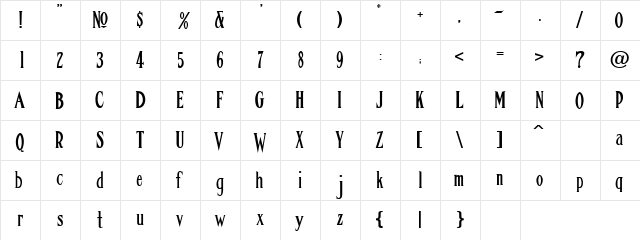
LHF Condensed French | ATK Regular
Design Context for LHF Condensed French | ATK Typeface
LHF Condensed French | ATK offers clean, dependable letterforms without strong stylistic allegiance, making it a practical choice for designers who need flexibility. The condensed width makes it efficient for tight spaces without sacrificing legibility.